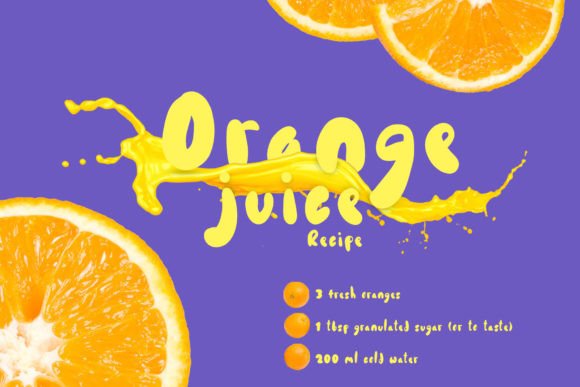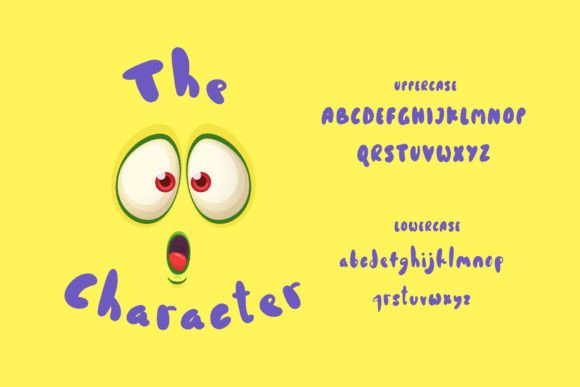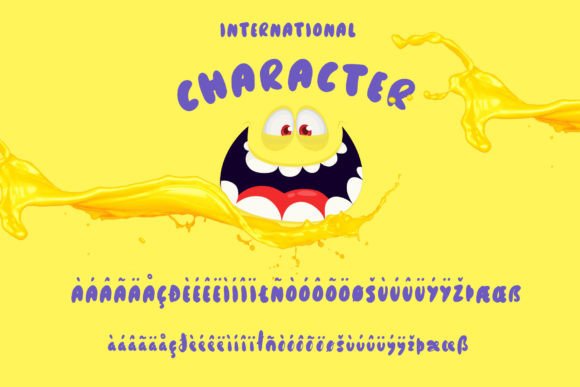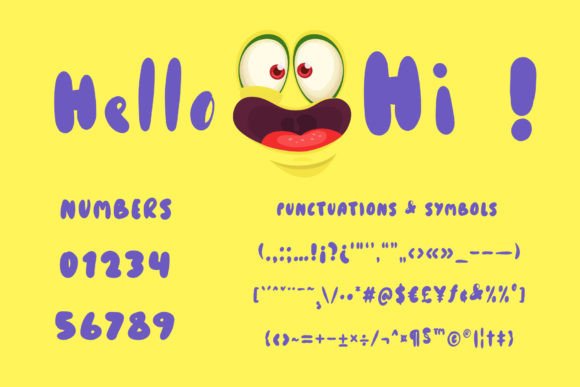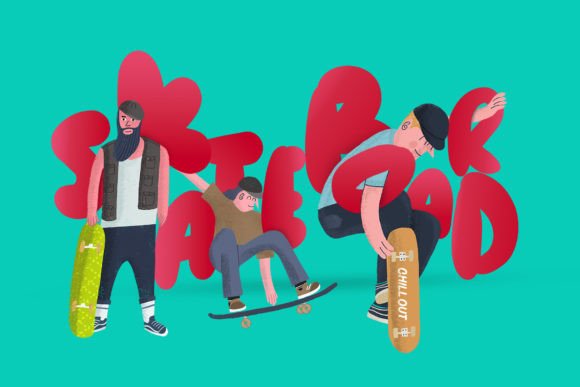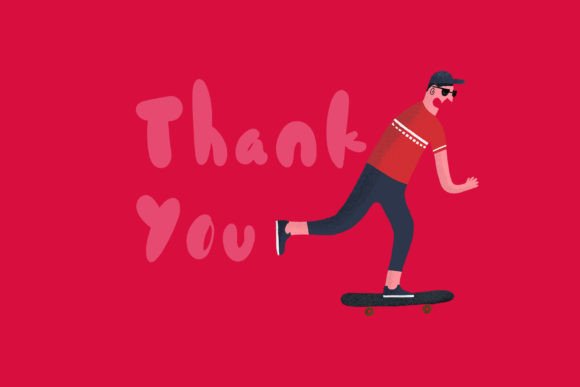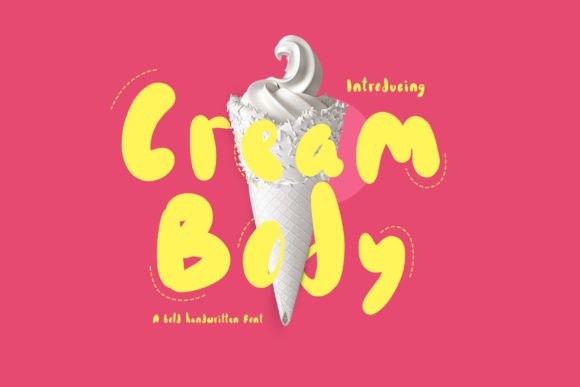
Cream Body Font: The Ultimate Display Font for Refreshing Designs
In the world of design, fonts play a crucial role in conveying messages, evoking emotions, and creating a lasting impression. When it comes to display fonts, Cream Body is a name that stands out for its delightful and refreshing aesthetic. This charming font is perfect for designers and crafters looking to add a touch of whimsy and fun to their work. In this article, we’ll dive into the world of Cream Body Font and explore its features, uses, and benefits.
What is Cream Body Font?
Cream Body Font is a display font designed to capture attention and bring a smile to people’s faces. Its unique and refreshing style makes it an excellent choice for posters, branding, packaging, and any design that aims to stand out from the crowd. With its clean lines, subtle curves, and playful vibe, Cream Body Font is sure to add a touch of personality to any design project.
Key Features of Cream Body Font
- Delightful and Refreshing: Cream Body Font boasts a unique and refreshing style that’s perfect for designers looking to add a touch of whimsy to their work.
- Perfect for Display: This font is designed specifically for display purposes, making it ideal for posters, headings, and titles.
- Clean Lines and Subtle Curves: Cream Body Font features clean lines and subtle curves that give it a playful and approachable feel.
- Highly Versatile: This font can be used in a variety of design projects, from branding and packaging to posters and social media graphics.
Uses of Cream Body Font
Cream Body Font is a versatile font that can be used in a wide range of design projects. Here are some of the most popular uses of this delightful font:
- Posters and Flyers: Add a touch of whimsy to your posters and flyers with Cream Body Font.
- Branding and Packaging: Use Cream Body Font to create eye-catching branding and packaging designs that stand out from the crowd.
- Social Media Graphics: Add a playful touch to your social media graphics with Cream Body Font.
- Invitations and Cards: Use Cream Body Font to create beautiful and unique invitations and cards.
Benefits of Using Cream Body Font
- Unique and Refreshing: Cream Body Font offers a unique and refreshing style that’s sure to capture attention.
- Easy to Read: Despite its playful vibe, Cream Body Font is easy to read and understand.
- Highly Versatile: This font can be used in a wide range of design projects, making it a valuable addition to any designer’s toolkit.
In conclusion, Cream Body Font is a delightful and refreshing display font that’s perfect for designers and crafters looking to add a touch of whimsy to their work. With its unique style, clean lines, and subtle curves, this font is sure to capture attention and bring a smile to people’s faces. Whether you’re working on posters, branding, packaging, or social media graphics, Cream Body Font is an excellent choice. So, what are you waiting for? Make Cream Body Font an essential element in your design journey and take your designs to the next level!